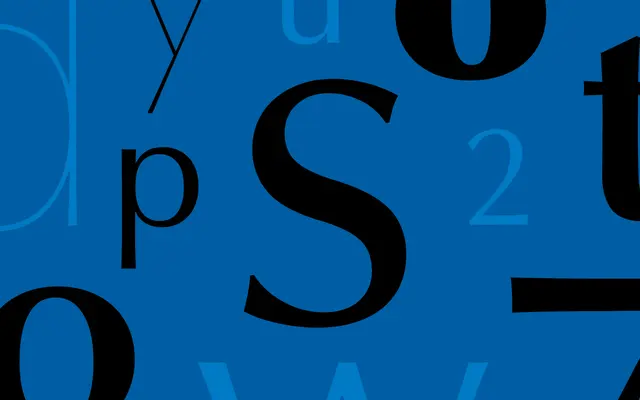
Amarelle Sans
Dalton Maag · Alex Blattmann, Ben Jones, Diogo Rapazote · 2024
Amarelle Sans specimen from Dalton Maag
A flared sans rooted in Hermann Zapf's 1958 design, drawn as the sans corner of the Amarelle suite.
Dalton Maag's Amarelle Sans is a flared sans by Alex Blattmann, Ben Jones and Diogo Rapazote, designed and developed 2024 to 2025. The variable font runs Hairline to Black with matching italics on an Italic axis, and forms the sans member of the Amarelle suite alongside Amarelle Serif and Amarelle Chancery. Latin coverage supports over 790 languages.
Dalton Maag describes Amarelle Sans as part of the Amarelle suite, rooted in Hermann Zapf's flared sans of 1958 and developed alongside the Serif and Chancery styles to form a unified typographic voice.